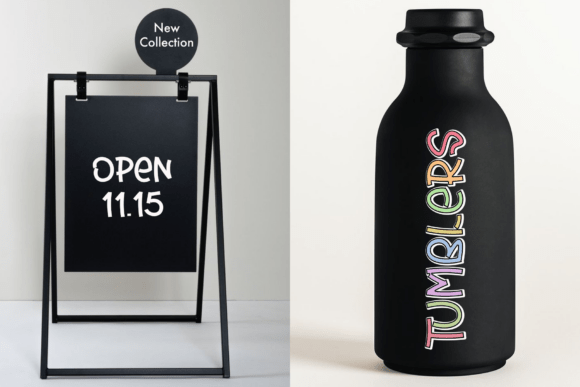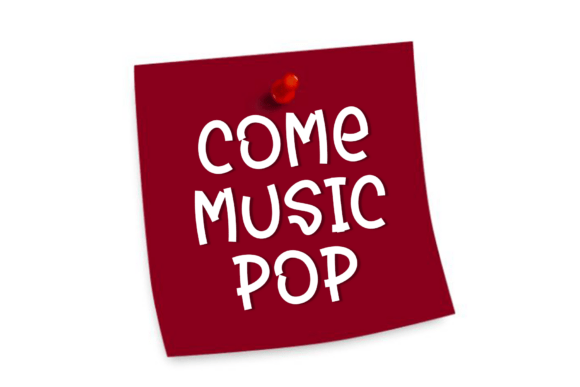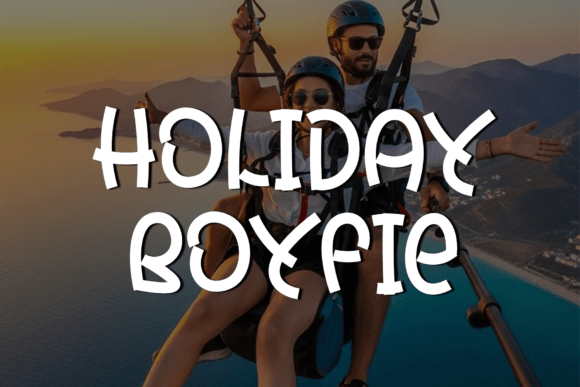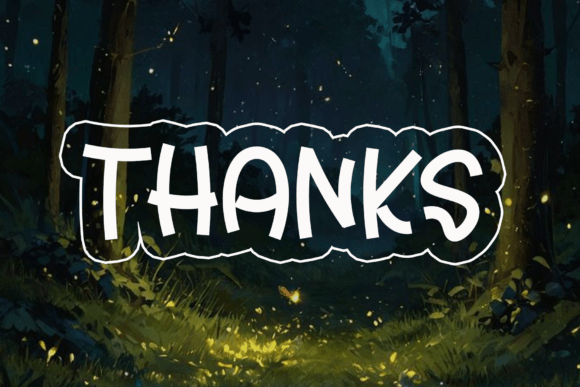
Introducing Africa Font: A Vibrant and Culturally Rich Display Font
Are you looking for a font that embodies the spirit of Africa? Look no further than Africa Font, a bold, rounded, and expressive modern display font that is strongly inspired by traditional African patterns and art. With its chunky, organic letterforms and powerful presence, Africa Font gives any project a vibrant, handcrafted, and culturally rich personality.
A Font Inspired by Traditional African Patterns and Art
Africa Font is more than just a font – it’s a celebration of African culture and heritage. The font’s design is deeply rooted in traditional African patterns and art, which is evident in its bold and expressive letterforms. Each letter is carefully crafted to reflect the vibrant colors and textures of African art, making it perfect for any project that needs a strong, cheerful, and unique visual voice.
Perfect for African-Themed Projects
Africa Font is perfect for a wide range of projects, including African-themed event posters, cultural education materials, ethical branding, apparel design, and more. Whether you’re designing a poster for a music festival, creating educational materials for a cultural institution, or developing a brand identity for a socially responsible business, Africa Font is the perfect choice.
Key Features of Africa Font
- Bold and Expressive Letterforms: Africa Font features chunky, organic letterforms that give it a powerful and vibrant presence.
- Inspired by Traditional African Patterns and Art: The font’s design is deeply rooted in traditional African patterns and art, making it perfect for any project that needs a culturally rich and authentic visual voice.
- Handcrafted and Unique: Africa Font has a handcrafted, unique personality that sets it apart from other fonts.
- Perfect for Display Use: Africa Font is designed for display use, making it perfect for headlines, titles, and other large-format text.
How to Use Africa Font in Your Designs
Africa Font is easy to use and can be incorporated into a wide range of design projects. Here are a few tips for using Africa Font in your designs:
- Use it as a Headline Font: Africa Font is perfect for headlines and titles, where its bold and expressive letterforms can really make an impact.
- Pair it with Other Fonts: Africa Font can be paired with other fonts to create a unique and visually appealing typography scheme.
- Experiment with Colors and Textures: Africa Font looks great in a wide range of colors and textures, so don’t be afraid to experiment and find the perfect combination for your project.
Benefits of Using Africa Font
There are many benefits to using Africa Font in your designs, including:
- Cultural Authenticity: Africa Font is deeply rooted in traditional African patterns and art, making it perfect for any project that needs a culturally authentic visual voice.
- Uniqueness: Africa Font has a unique and handcrafted personality that sets it apart from other fonts.
- Versatility: Africa Font can be used in a wide range of design projects, from posters and flyers to apparel and branding.
Africa Font is a vibrant and culturally rich display font that is perfect for any project that needs a strong, cheerful, and unique visual voice. With its bold and expressive letterforms, handcrafted personality, and deep roots in traditional African patterns and art, Africa Font is the perfect choice for designers and crafters looking to add a touch of African culture to their designs.